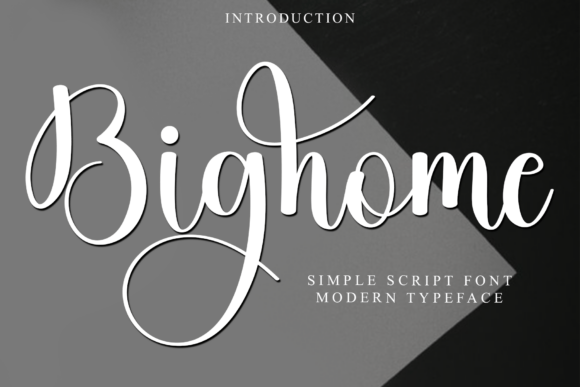
Discover the Magic of Bighome Font
Have you ever been in a creative flow, where ideas just seem to pour out of your imagination, and you can’t help but express them in a way that’s both beautiful and unique? That’s exactly the feeling you get when you work with the Bighome Font. This stunning font is designed to capture the essence of creativity, with its soft, distinctive strokes that make it truly special.
With its versatility and unique character, the Bighome Font is a valuable tool for designers looking to add a personal touch to their projects. Whether you’re working on a design, a craft, or any other creative endeavor, this font is sure to elevate your work and make it stand out. Its compatibility with various applications, including Windows and open-source platforms, makes it an ideal choice for a wide range of products.
Bighome Font Key Features
- Unique Characteristics: The font features a unique blend of modern and vintage elements, making it perfect for creating a distinctive and eye-catching visual identity.
- Language Support: The font includes comprehensive language support, covering Latin, Cyrillic, and Greek alphabets, as well as various diacritical marks and symbols.
- Font Style: Bighome Font offers a range of font styles, including Regular, Bold, Italic, and Bold Italic, allowing for versatility in text formatting and emphasis.
Bighome Font Review
As a designer, I was excited to dive into the Bighome Font and see what it had to offer. Overall, I’d say it’s a solid addition to any font collection.
- Unique aesthetic: Bighome Font has a distinct, modern feel that sets it apart from more generic fonts.
- High-quality glyphs: The font features crisp, well-designed glyphs that make it suitable for both digital and print applications.
- Comprehensive character set: The font includes a wide range of characters, including ligatures and extended Latin characters.
- Limited language support: While Bighome Font does include extended Latin characters, it may not be suitable for languages that require more complex scripts.
- Not ideal for small text: The font’s bold, modern design can make it difficult to read in smaller sizes.
- No bold or italic weights: The font is available in a single weight, which may limit its versatility.
Overall, Bighome Font is a great choice for designers looking to add some visual interest to their projects. While it may have some limitations, its unique aesthetic and high-quality glyphs make it a solid addition to any font collection.
Bighome Font is ideal for:
- Headings and titles in marketing materials and presentations.
- Body text in brochures and flyers.
- Brand logos and typography-based designs.
Compared to Bighome Font, Open Sans is more neutral and versatile, making it a better choice for general use. While Bighome Font has a more rustic, handwritten feel, Open Sans is more straightforward and easy to read.
Compared to Bighome Font, Great Vibes has a more refined and polished feel, making it better suited for high-end designs. While Bighome Font has a more casual, handwritten vibe, Great Vibes is more formal and luxurious.